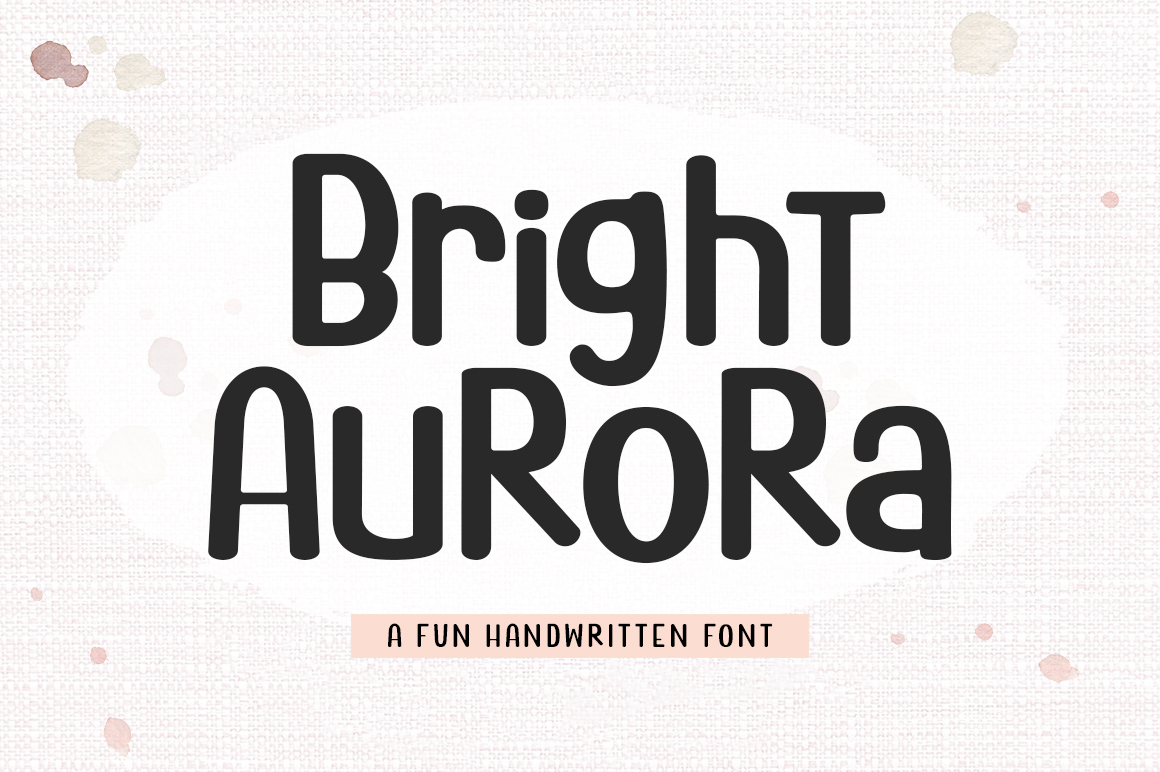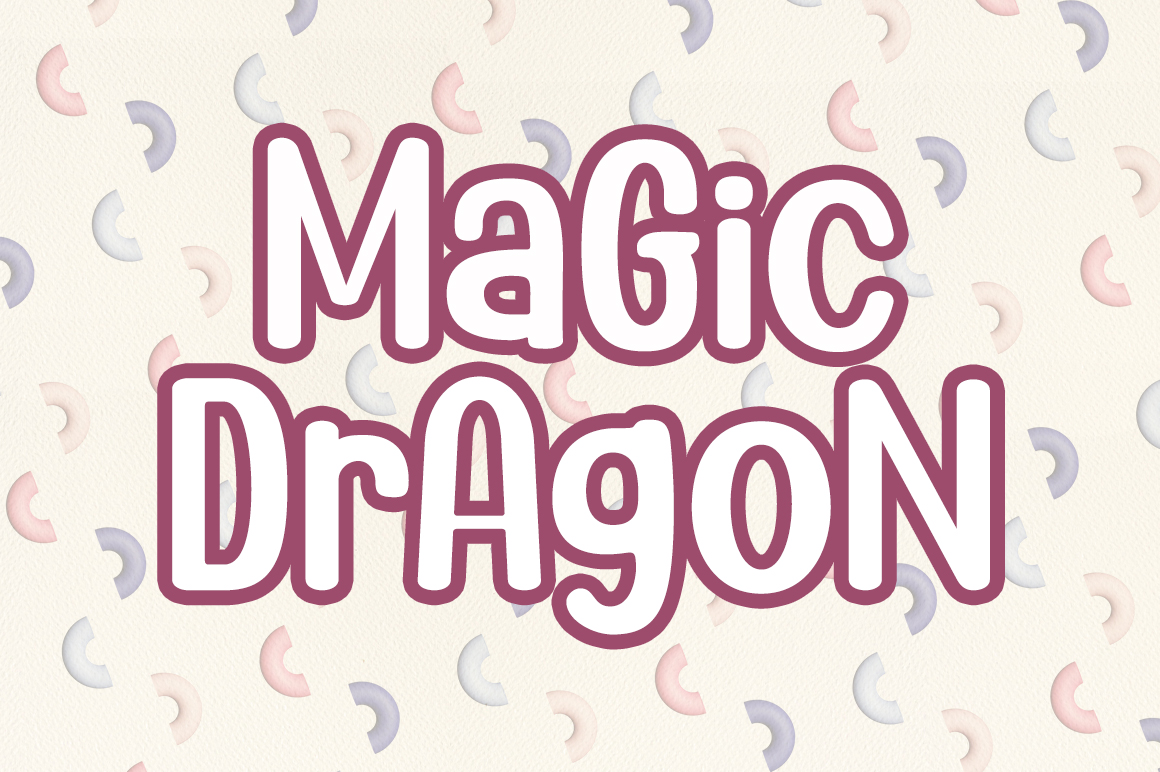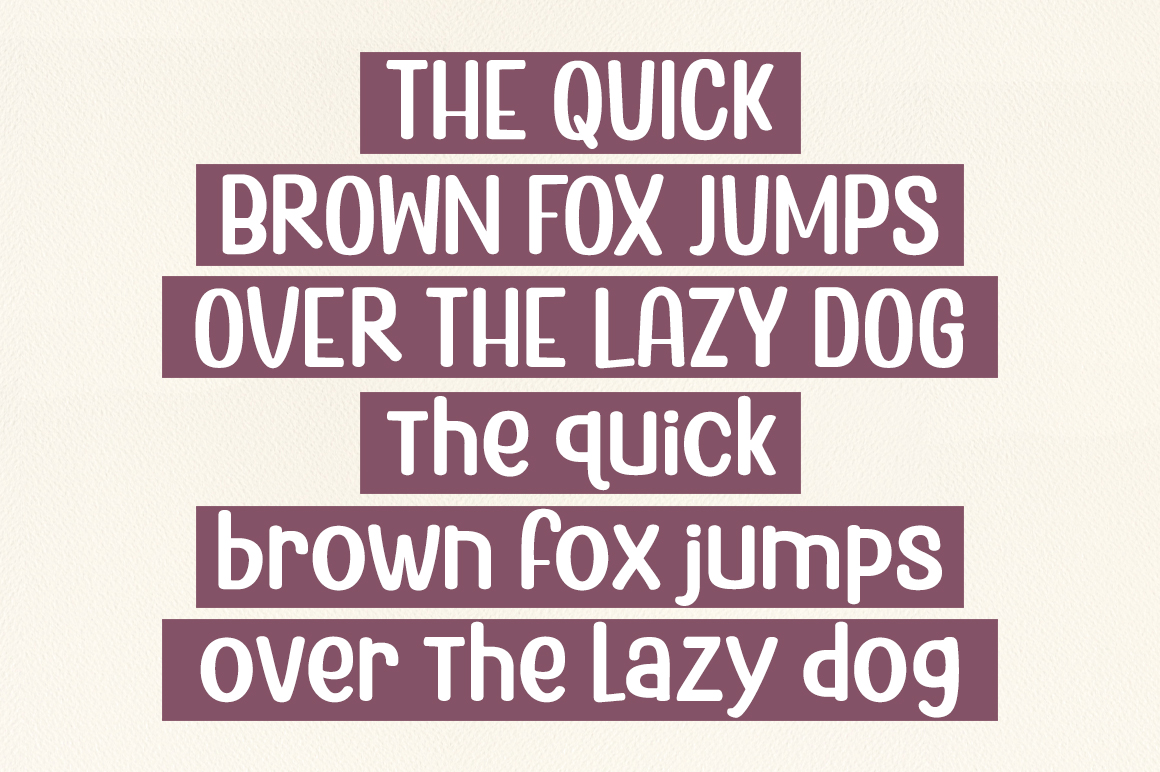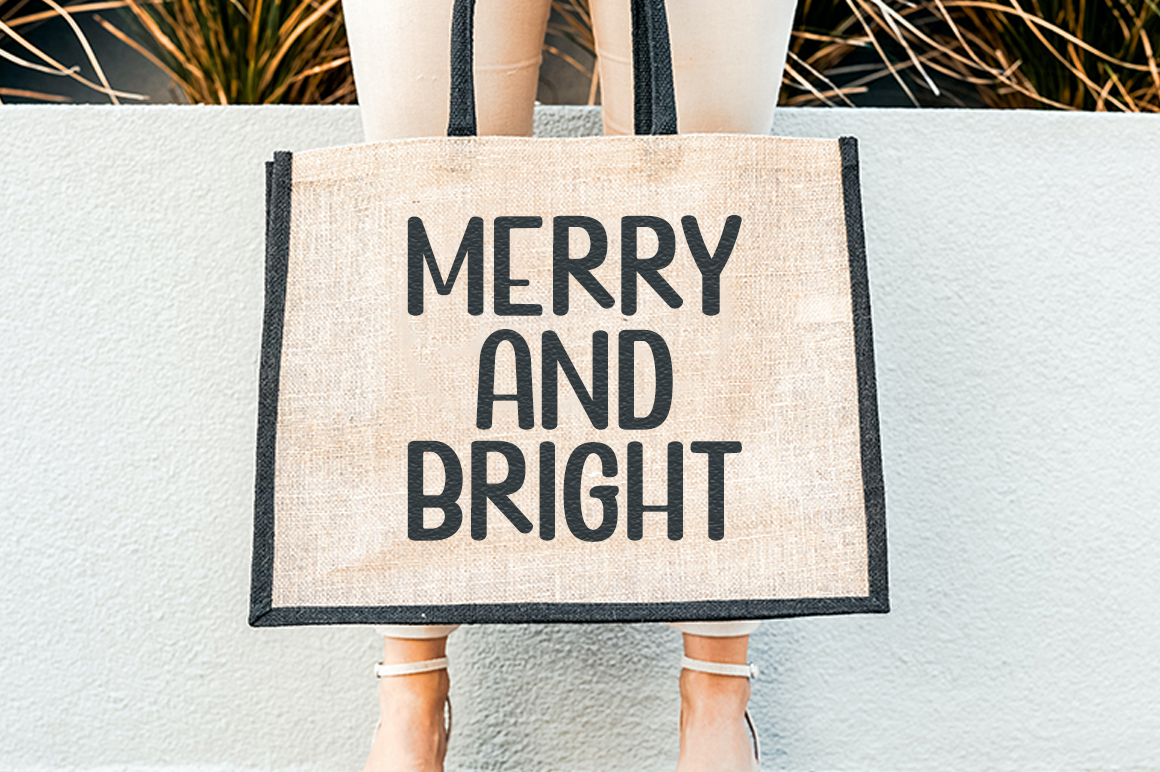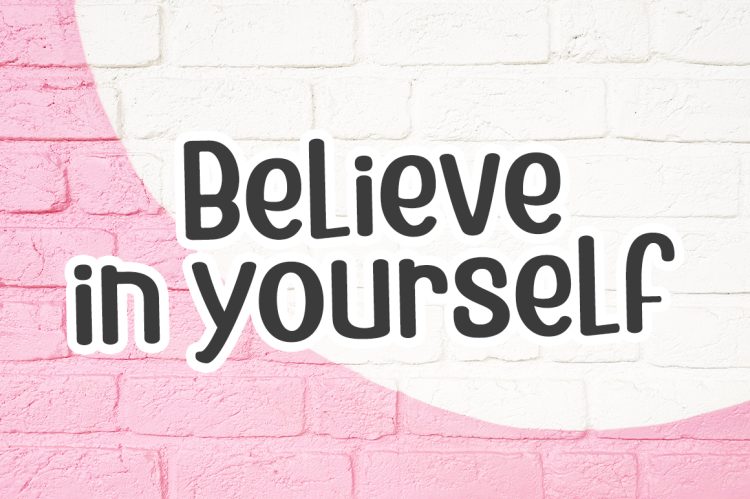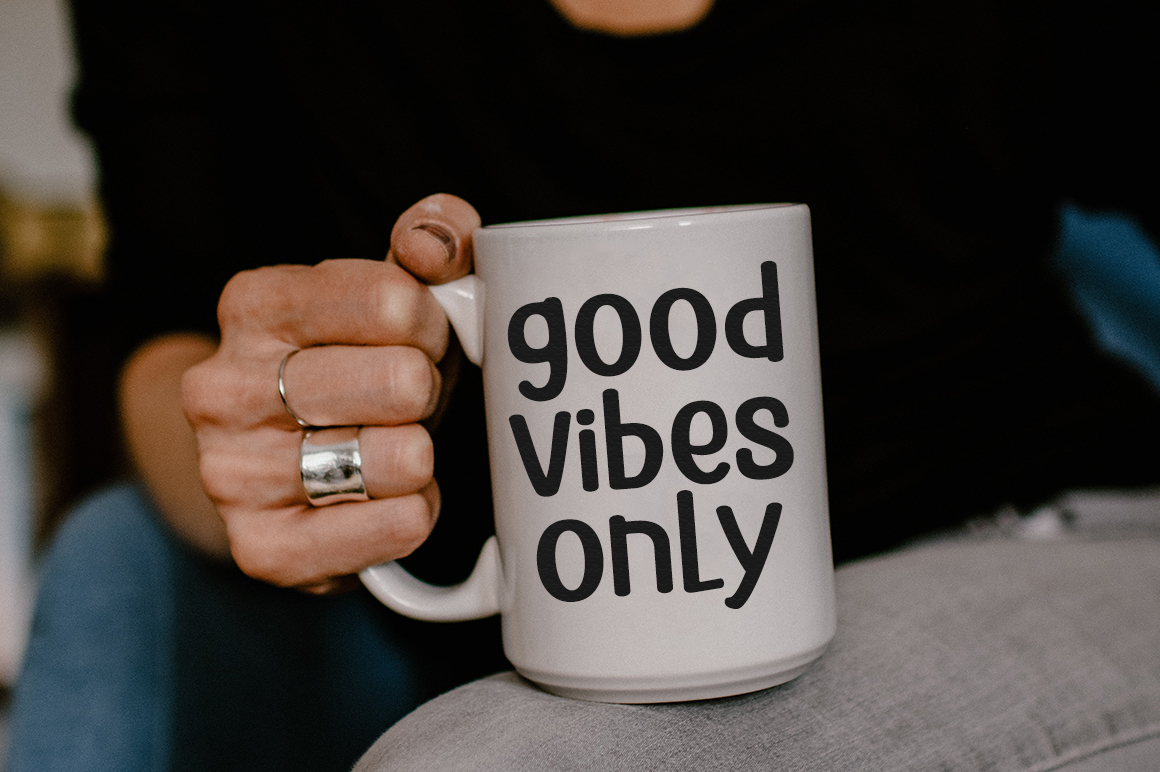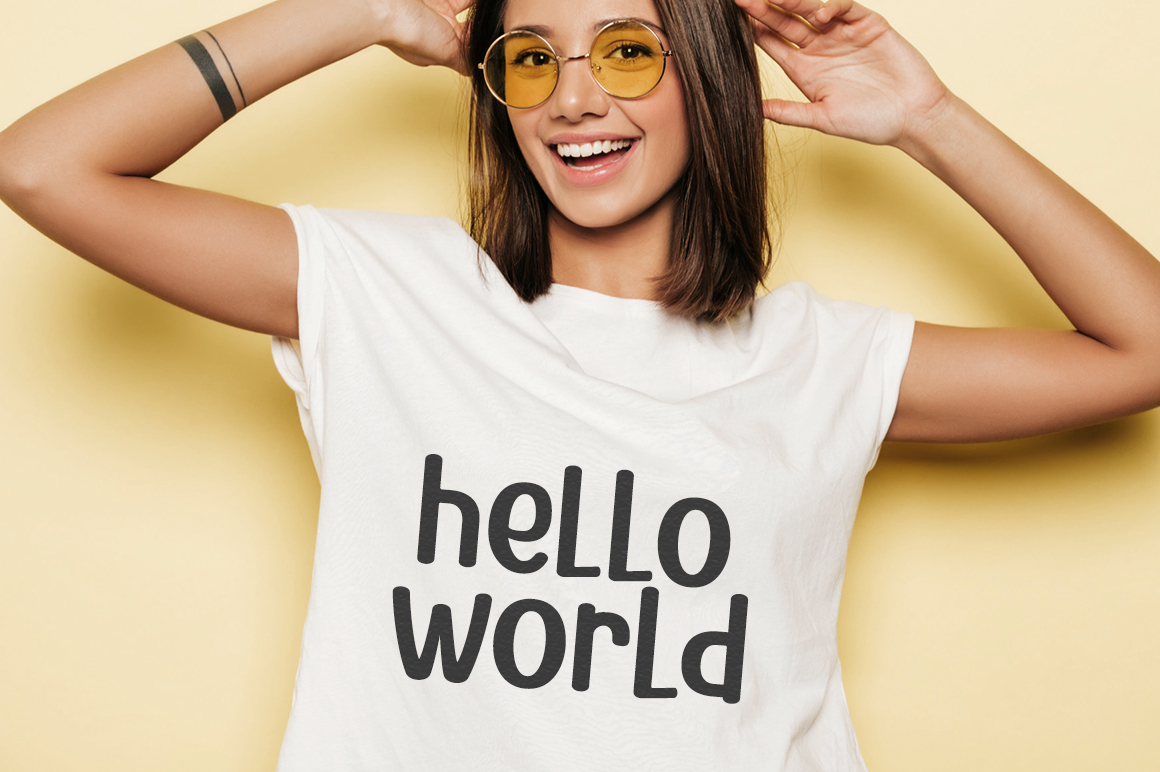
Bright Aurora is a fun handwritten font, Mix uppercase and lowercase for a fun and unique look!
Bright Aurora is perfect for quotes, t-shirt designs, websites, branding, store brand, kids designs, svg designs, blogs, poster, logos, invitations and more!